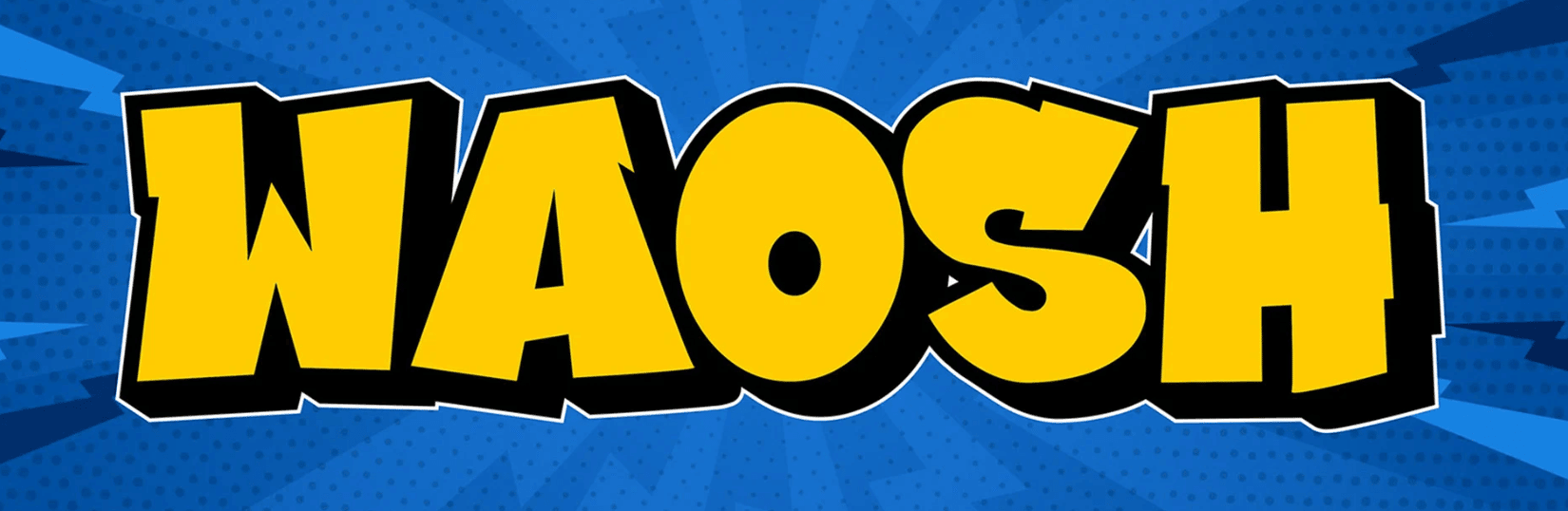
Font ❤️ Friday and Other Designery Things #31
I let my newsletter Font Love Friday and Other Designery Things Newsletter slip into May... I didn’t send an April edition. Regular subscribers know it's normally out on the last Friday of the month... So to make up for it, here is a mini May edition!
This week marks the end of school life for my two teens. So many mixed emotions! Both are creating designs for their leavers shirts. My daughter says to me “Mum, do you have any fonts to design my shirt?” Errr, incoming 20 mins of me researching and chatting about what would look good for something she would forget in a year's time! But today - it’s very important.
Do you feel like that with your work? At the time you think “this is THE ONE” but when you look at it later, you think “why on earth did I choose that??” That’s why it’s important not to get too caught up with the trends, especially with fonts. Think about what will stand the test of time. Well, at least for a good few years. Want to see the font we went for?
It’s a Comic Graffiti Font. It’s not a serious one. But it’s great fun for playful projects. The creators say: “Waosh combines the rebellious spirit of street art with the whimsical nature of comic fonts. This unique blend results in a font that is both edgy and playful, perfect for projects that need a touch of creative flair.”
There are hundreds of graffiti styles out there. Also do you remember the days when street art was seen as a terrible thing? Now councils commission it! Don’t be doing anything illegal, always seek permission before you create on an empty wall - oh, hello Banksy!
FONTS
History repeating
Check out Fonts In Use, an independent archive of past places you’ll find fonts. My fave is on the book: Cookin' With Queen Ida. Love the cover, the fonts Dolmon and Zierdolmen, the chopped up food, and she has an accordion! I’d love a little tune whilst cooking - no Spotify here!
Editorial Design
I had a report from Google recently saying my most looked at blog is What is Editorial Design? I’d been wondering why and I think I know. It’s this book: Editorial Design which has just been released. I’m guessing people have been googling it!